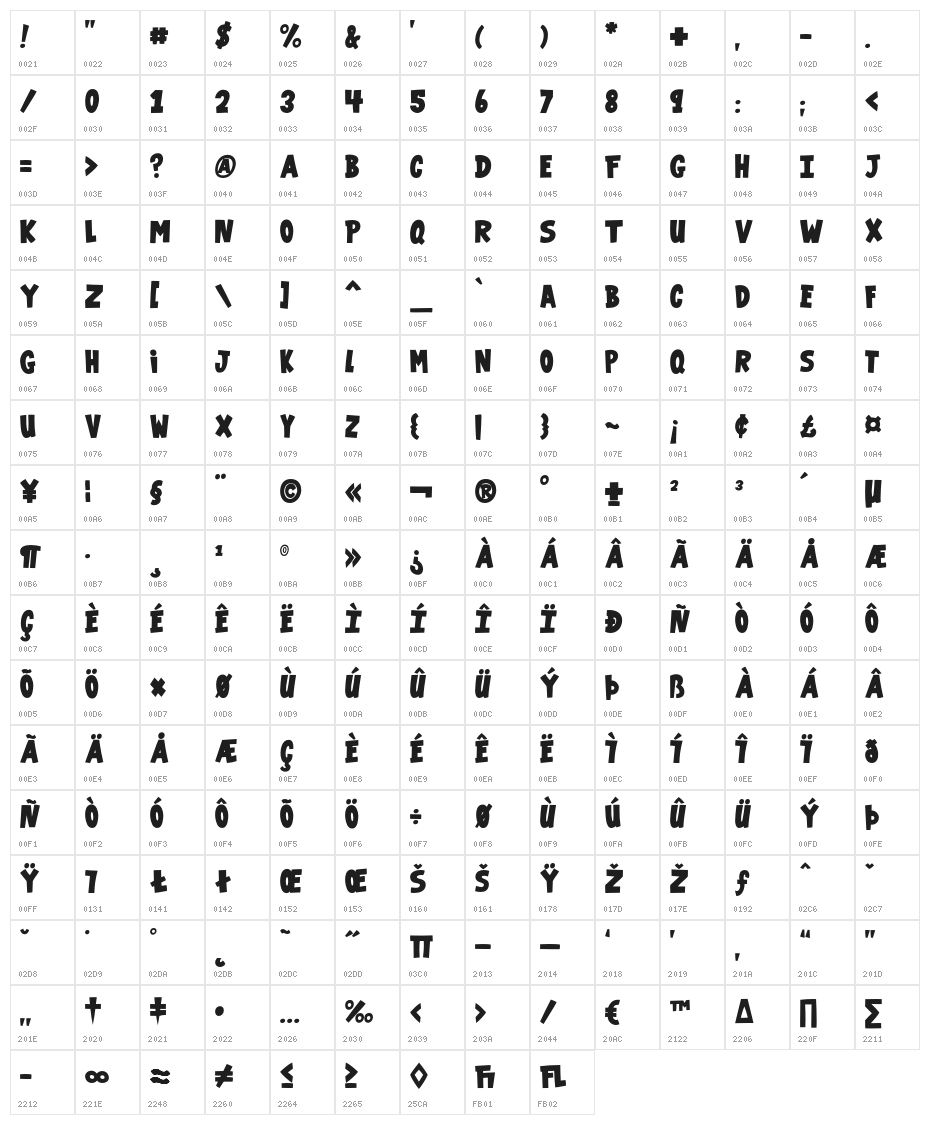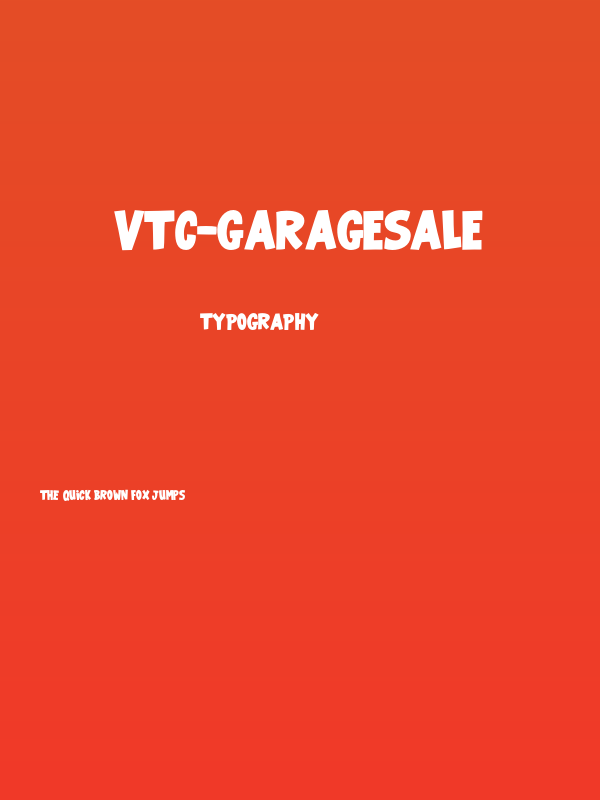
VTC-GarageSale Font
VTC-GarageSale Description
This font features a bold and playful style with a hand-drawn appearance, characterized by its thick, uneven strokes and slightly irregular shapes. The letters have a whimsical, cartoonish quality, making them stand out with a lively and energetic vibe. The uppercase and lowercase letters maintain a consistent style, with the uppercase being slightly more exaggerated in form. Numbers and special characters follow the same playful design, ensuring a cohesive look across all characters. The overall aesthetic is informal and fun, suitable for projects that require a touch of humor and creativity.
Overall StylePlayful, Cartoonish, Informal
Use CaseHeadlines, Posters, Branding
Proposed ProjectsIdeal for children's books, comic strips, playful branding, and event posters.